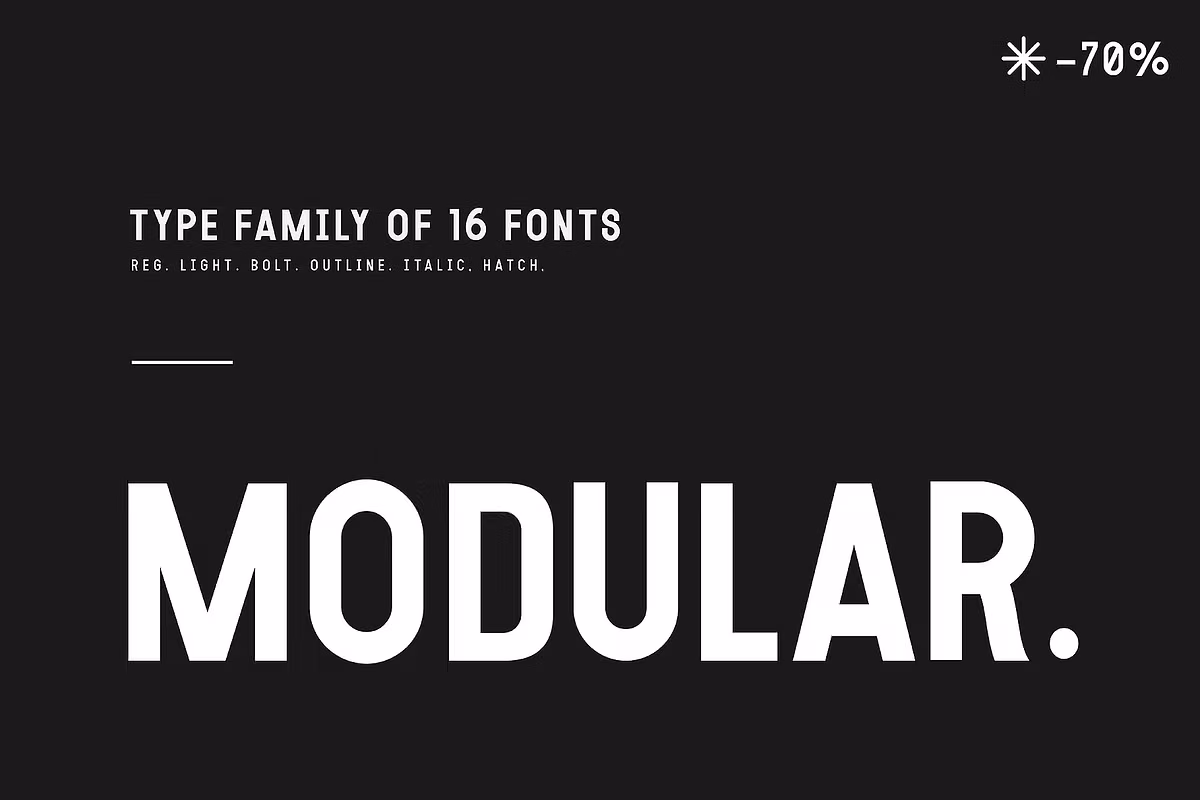
MODULAR - 16 FONTS Free Download is an extensive and versatile font family offering 16 unique fonts designed to suit a wide variety of design needs. With its clean lines and geometric style, this font family is perfect for modern branding, websites, logos, posters, and editorial projects. Whether you're looking for a bold display font or a sleek, minimalist option, the MODULAR - 16 FONTS Free Download lets you experiment with multiple styles in personal projects before purchasing a commercial license. Its flexibility and contemporary appeal make it ideal for professional and creative work. Elevate your designs with this diverse, high-quality font family that brings structure and style to any project.